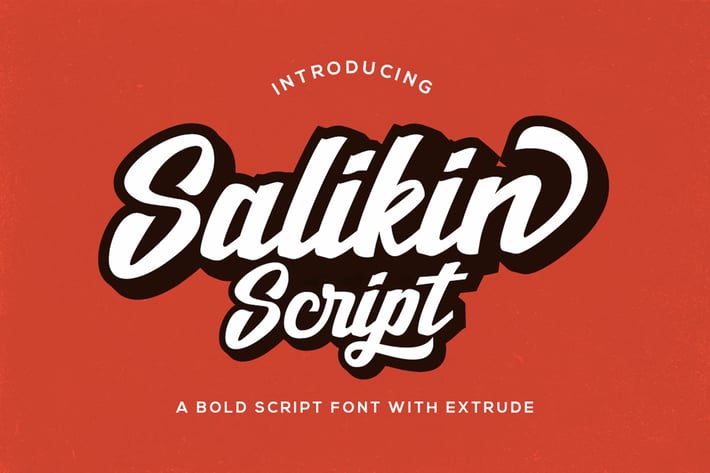
Salikin Script Font
Salikin is a bold script font. Salikin a very good for logotype, header, name tag, quotes, labels, t-shirts, packaging, and any more.